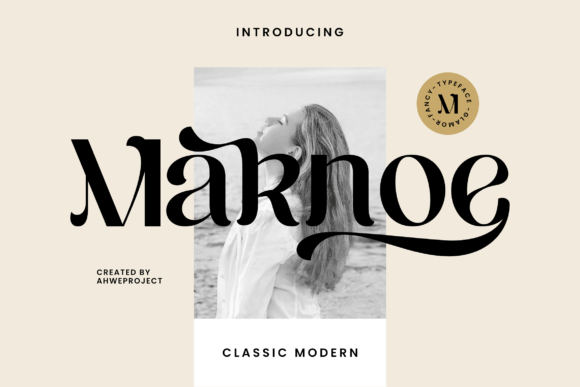
Indulge in the captivating charm of Maknoe font, an artistic masterpiece that exudes sophistication and timeless elegance. Crafted with meticulous care, this captivating serif font invites you to embark on an extraordinary typographic journey that will leave a lasting impression on your audience.
Maknoe's graceful curves and sharp edges dance harmoniously, creating a visual symphony that will elevate your designs to new heights. This elegant typeface is a true chameleon, effortlessly adapting to a myriad of design concepts, from clean and minimalist logos to captivating headlines and alluring magazine covers.
Unleash your creativity with Maknoe's extensive character set, meticulously encoded with PUA to grant you effortless access to a world of glyphs and swashes. This versatile font empowers you to craft captivating compositions that will resonate with your audience, leaving an unforgettable mark on their hearts and minds.
Step into the realm of typographic excellence with Maknoe font. Its timeless appeal and captivating presence will transform your designs into works of art, captivating your audience with its undeniable charm. Embrace the power of Maknoe and watch your creations soar to new heights of elegance and sophistication.